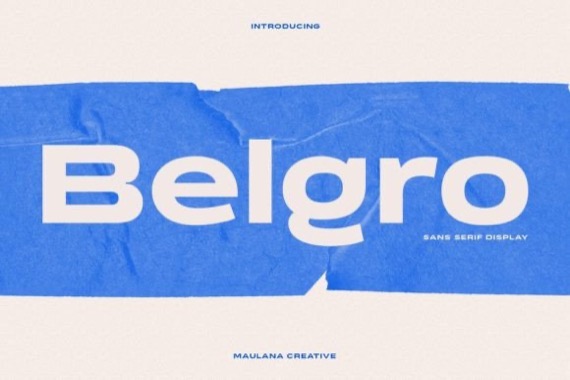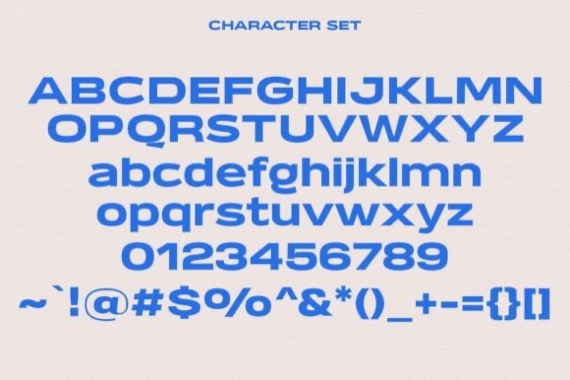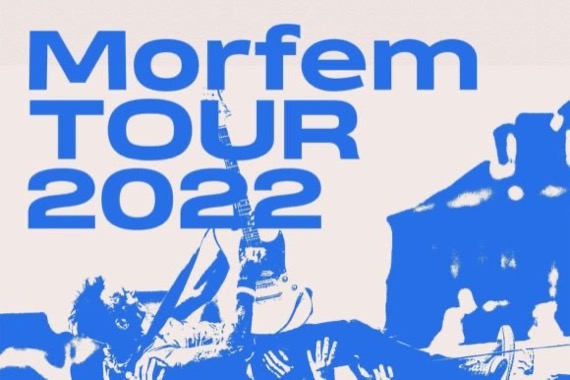
Introducing a new trend and cool display font from Maulana Creative, Belgro is a modern and assertive sans serif font. This font reads as strong, confident, and dynamic and can add tons of character to your designs.
Belgro Display Sans Font
Designer, Publisher: Maulana Creative